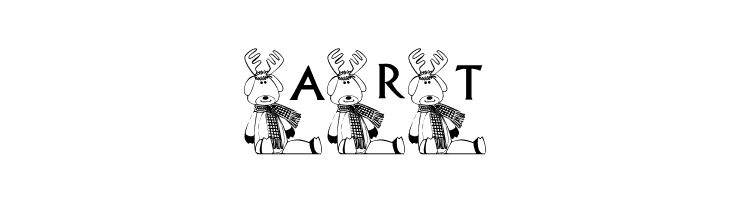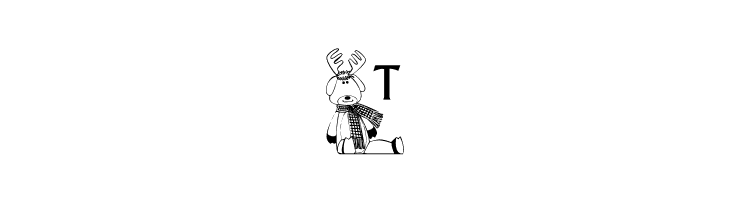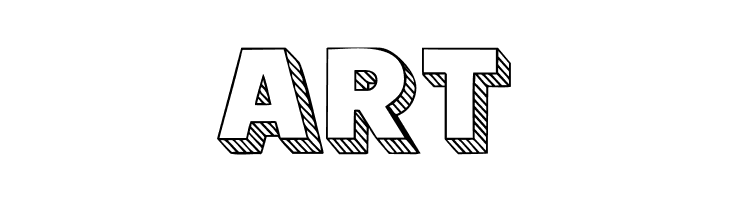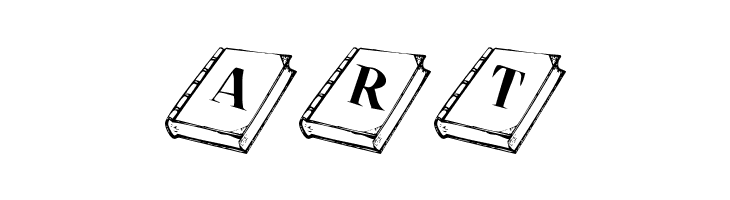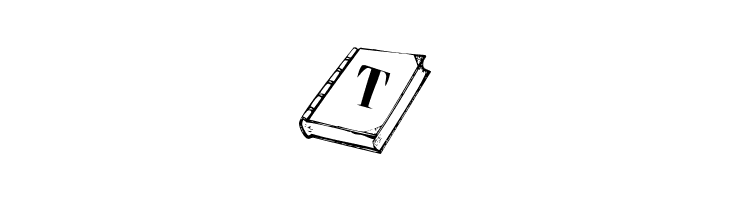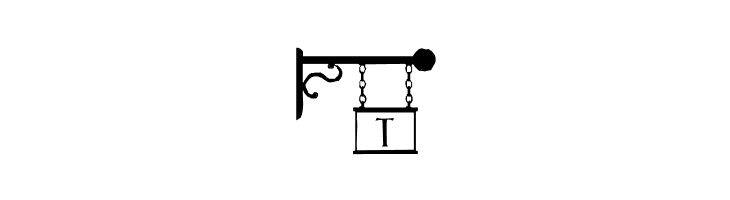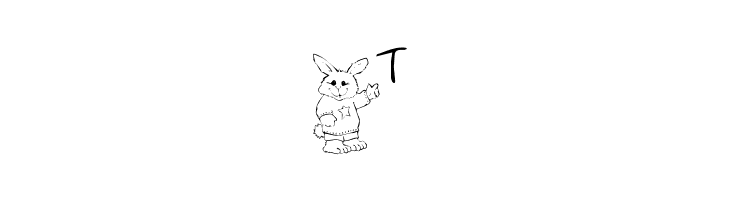
A playful, decorative font featuring cartoon reindeer alongside each letter.
Bold, 3D block letters with shadow and hatching, offering a playful and decorative style.
A decorative font with characters on 3D books, ideal for fantasy themes.
A decorative, vintage-style font with framed characters and ornate details.
A bold, decorative font with a unique brick pattern filling each character.
A playful font with letters inside cartoon bunny characters, perfect for fun and whimsical designs.
A playful font with cartoon bunnies accompanying each character.